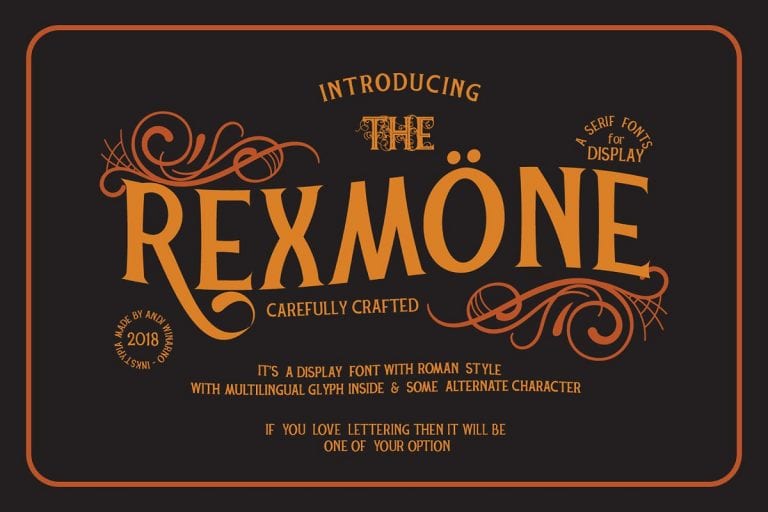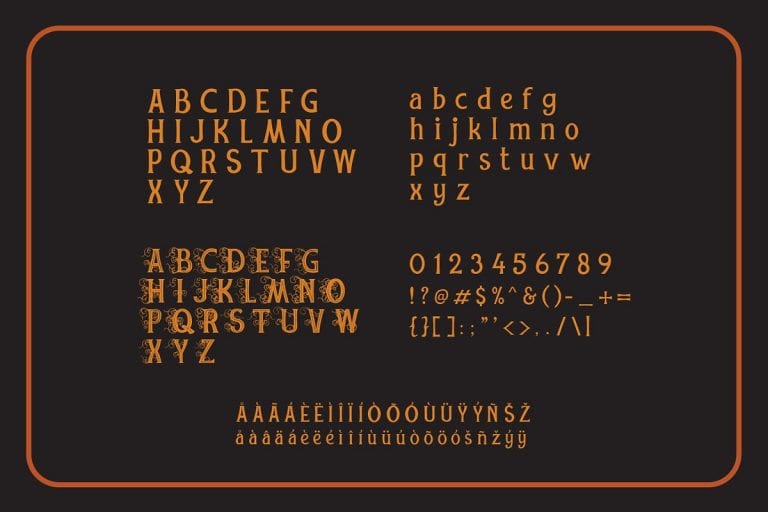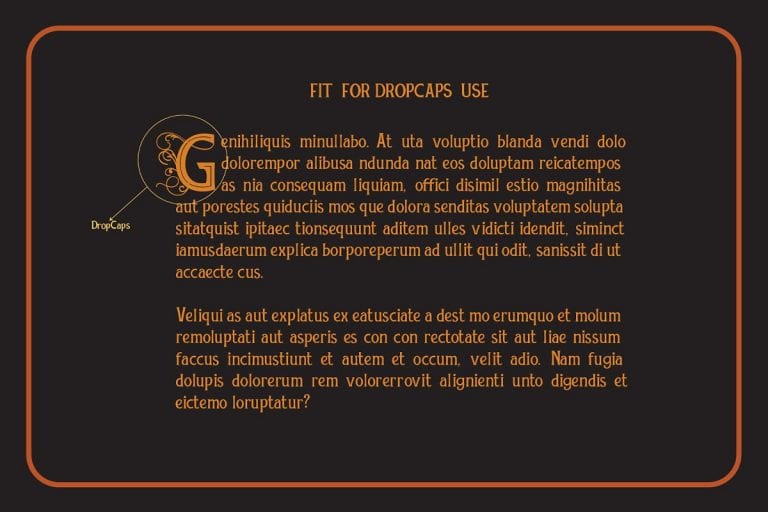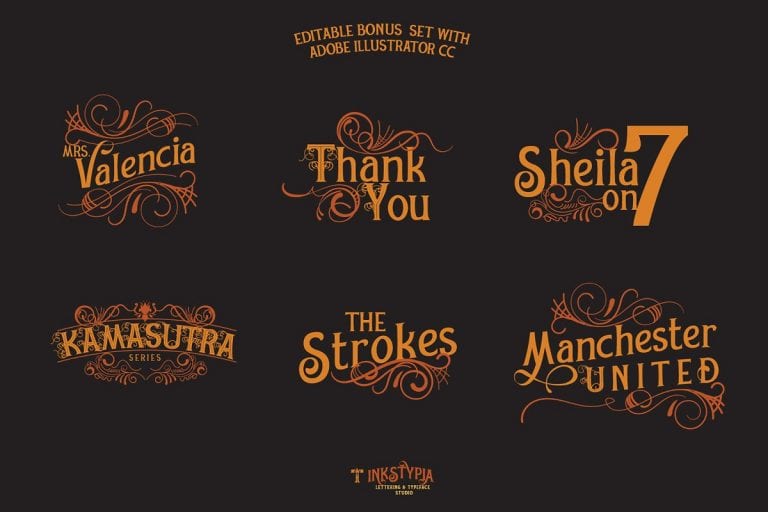
REXMONE is a serif display font with roman style, available on True Type / Opentype Format, it has multilingual feature and alternative character. If you like to use it for your Badge, Poster, Lettering Work, Label design, so it can be your another option.